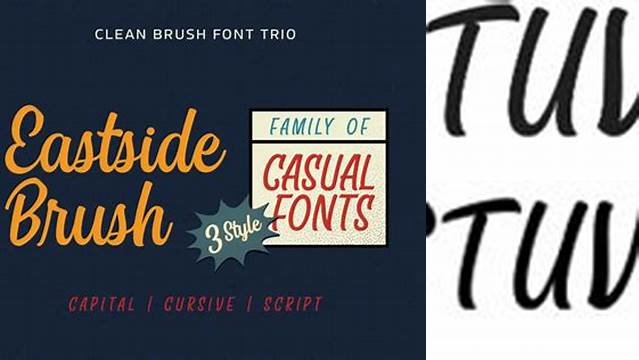
Eastside Brush Script Font: Free Download & Creative Uses
Hey guys! Are you on the hunt for a dynamic and eye-catching font to elevate your design projects? Look no further! The eastside brush script font is a fantastic option, known for its flowing lines, energetic strokes, and handmade feel. In this comprehensive guide, we'll dive deep into what makes this font so special, where you can find it for free (yes, you heard that right!), and how you can use it to create stunning designs that stand out from the crowd. We'll explore its characteristics, licensing, and practical applications, ensuring you have all the information you need to make the most of this versatile typeface. Whether you're a seasoned designer or just starting, the Eastside Brush Script font offers a unique way to infuse personality and flair into your work. So, let's get started and unlock the creative potential of this amazing font!
What Makes Eastside Brush Script Font So Special?
The Eastside Brush Script font isn't just another typeface; it's a statement. Its appeal lies in its ability to capture the essence of hand-lettering while maintaining a level of readability that makes it suitable for a variety of applications. What exactly are the features that make Eastside Brush Script font so special? First and foremost, it exudes a sense of authenticity and personality. Unlike sterile, geometric fonts, Eastside Brush Script mimics the natural variations and imperfections of a handwritten script. This gives it a warm, inviting quality that resonates with audiences seeking a personal touch. The brush-like strokes add a sense of dynamism and energy, making it perfect for designs that need to convey movement or excitement. This font isn't afraid to be bold and expressive, making it ideal for headlines, logos, and other prominent design elements.
Another key feature of the Eastside Brush Script is its versatility. While it certainly shines in projects that call for a casual, hand-crafted feel, it can also be surprisingly effective in more formal contexts when used judiciously. For example, it could be used to add a touch of personality to wedding invitations or to create a unique logo for a boutique brand. The font's distinctiveness ensures that it won't get lost in the shuffle, but its readability means that it can still function effectively in body text when needed. The balance between expressiveness and legibility is a hallmark of a well-designed script font, and Eastside Brush Script strikes this balance beautifully. Furthermore, Eastside Brush Script often includes stylistic alternates and ligatures, adding even more flexibility for designers. These additional characters can be used to fine-tune the font's appearance, creating a truly bespoke look. For example, ligatures (where two letters are joined together) can enhance the font's fluidity and naturalness, while alternates can provide variations in letterforms to prevent repetition and add visual interest. These extra touches elevate the Eastside Brush Script from a simple typeface to a powerful design tool, capable of conveying a wide range of moods and messages.
How to Use Eastside Brush Script Font in Your Designs
Okay, you've downloaded the Eastside Brush Script font – awesome! Now, let's talk about how to put it to good use. This font is a powerhouse for adding personality and flair to your designs, but like any powerful tool, it's important to use it strategically. Overuse can dilute its impact, while the right application can elevate your project to a whole new level. One of the most effective ways to use Eastside Brush Script is in headlines and titles. Its bold, eye-catching nature makes it perfect for grabbing attention and setting the tone for your design. Think about using it for website headers, social media graphics, or poster designs. The font's dynamic strokes will instantly add a touch of energy and excitement, making your message more memorable. However, keep in mind that because of its strong personality, it's best to limit its use in large blocks of text. Using it sparingly in key areas will maximize its impact without overwhelming the viewer.
Another fantastic application for Eastside Brush Script is in logos and branding. Its hand-lettered feel can give your brand a unique and approachable identity. It's particularly well-suited for brands that want to convey a sense of creativity, authenticity, or handmade quality. Imagine a coffee shop using Eastside Brush Script for its logo – the font would instantly evoke a sense of warmth and craftsmanship. Or consider a fashion brand using it to add a touch of edginess to its visual identity. The possibilities are endless. When using it for branding, make sure to pair it with a more neutral typeface for body text to maintain readability and balance. The key is to let Eastside Brush Script shine in the logo itself, while using a simpler font for supporting text. In addition to headlines and logos, Eastside Brush Script can also be effective in invitations and cards. Its elegant and flowing lines make it a natural choice for adding a personal touch to special occasions. Whether it's a wedding invitation, a birthday card, or a thank-you note, Eastside Brush Script can help you convey your message with style and grace. Just remember to use it in moderation and pair it with complementary design elements to create a cohesive and visually appealing result. Ultimately, the best way to learn how to use Eastside Brush Script effectively is to experiment and explore its possibilities. Try it out in different contexts, pair it with various fonts, and see what works best for your specific project. With a little practice, you'll be able to harness the power of this versatile typeface and create designs that truly stand out.
Pairing Eastside Brush Script with Other Fonts
Font pairing is an art, guys, and the key is to find complementary typefaces that enhance each other's strengths without clashing. When it comes to the Eastside Brush Script font, pairing it with the right font can make all the difference in creating a visually appealing and balanced design. Since Eastside Brush Script is a bold and expressive typeface, it's generally best to pair it with fonts that are more clean and understated. This creates a contrast that allows the script font to shine while maintaining overall readability and harmony. One classic pairing option is to combine Eastside Brush Script with a sans-serif font. Sans-serif fonts are known for their simplicity and modern aesthetic, which provides a nice counterpoint to the script font's more organic and flowing forms. Think about using a font like Helvetica, Arial, or Open Sans for body text and pairing it with Eastside Brush Script for headings or titles. This combination creates a clean and contemporary look that's both stylish and easy to read.
Another excellent pairing option is to use a serif font with Eastside Brush Script. Serif fonts have small decorative strokes at the ends of their letters, giving them a more traditional and formal appearance. Pairing a serif font with a script font can create a sophisticated and elegant look, perfect for projects like wedding invitations or branding materials for high-end businesses. Some popular serif fonts that work well with script fonts include Times New Roman, Garamond, and Playfair Display. When pairing a serif font with Eastside Brush Script, it's important to choose a serif font that's not too ornate or fussy. A simpler serif font will complement the script font without overwhelming it. In addition to considering the font family (sans-serif or serif), it's also important to pay attention to the font weight and style. If you're using Eastside Brush Script for a headline, you might want to pair it with a lighter weight sans-serif or serif font for the body text. This creates a visual hierarchy and ensures that the heading stands out. Conversely, if you're using Eastside Brush Script for smaller design elements, you might want to pair it with a bolder font to ensure that it remains legible. Ultimately, the best way to find the perfect font pairing for Eastside Brush Script is to experiment and see what works best for your specific project. Don't be afraid to try out different combinations and trust your eye. Remember, the goal is to create a balanced and visually appealing design that effectively communicates your message.
Unleash Your Creativity with Eastside Brush Script!
The eastside brush script font is more than just a typeface; it's a creative tool that can help you bring your design visions to life. Its dynamic strokes, hand-lettered feel, and versatile nature make it a valuable asset in any designer's toolkit. Whether you're working on a website, a logo, an invitation, or any other type of design project, Eastside Brush Script can add a touch of personality and flair that sets your work apart. We've explored what makes this font so special, where you can find it for free, how to use it effectively in your designs, and which fonts it pairs well with. Now, it's time to unleash your creativity and start experimenting! Don't be afraid to try out different applications, pair it with various fonts, and see what kind of magic you can create. The world of design is constantly evolving, and Eastside Brush Script is a font that's ready to evolve with it. So, go ahead, download the font, and let your imagination run wild. We can't wait to see what you come up with! Happy designing, guys!